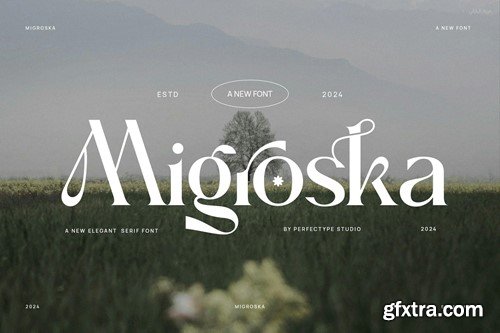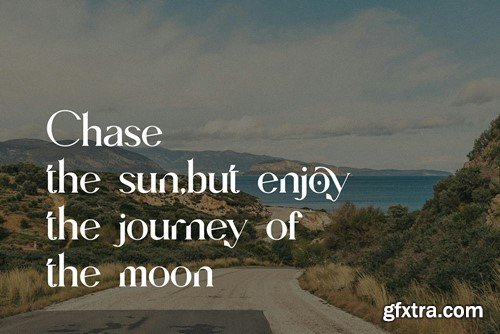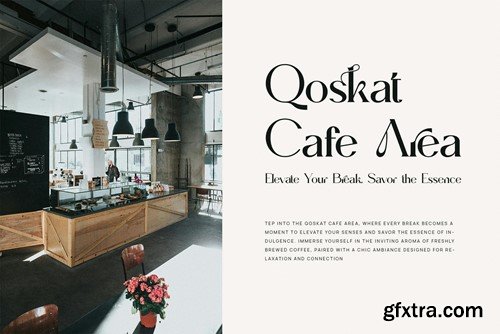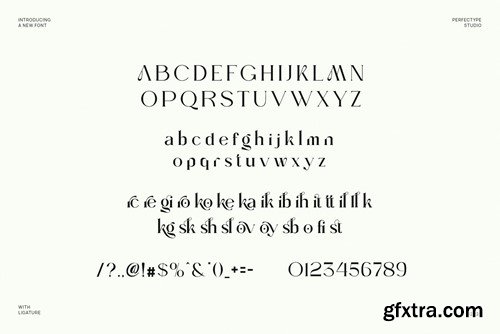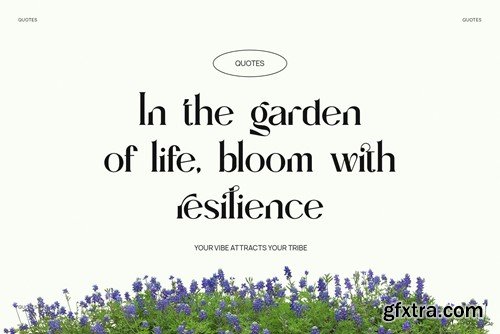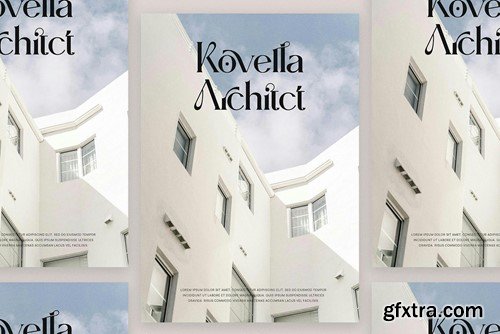
Migroska Elegant Ligature Serif Font Typeface
Is a unique and very elegant font for branding and logo designs Elegant serif typeface combined with a classy and modern style. This type of font is very suitable for your various needs such as branding projects, logos, wedding designs, social media posts, advertisements, product packaging, product designs, labels, photography, watermarks, invitations, stationery, and any project, created with high level of readability. you will not be disappointed if you buy this font!!